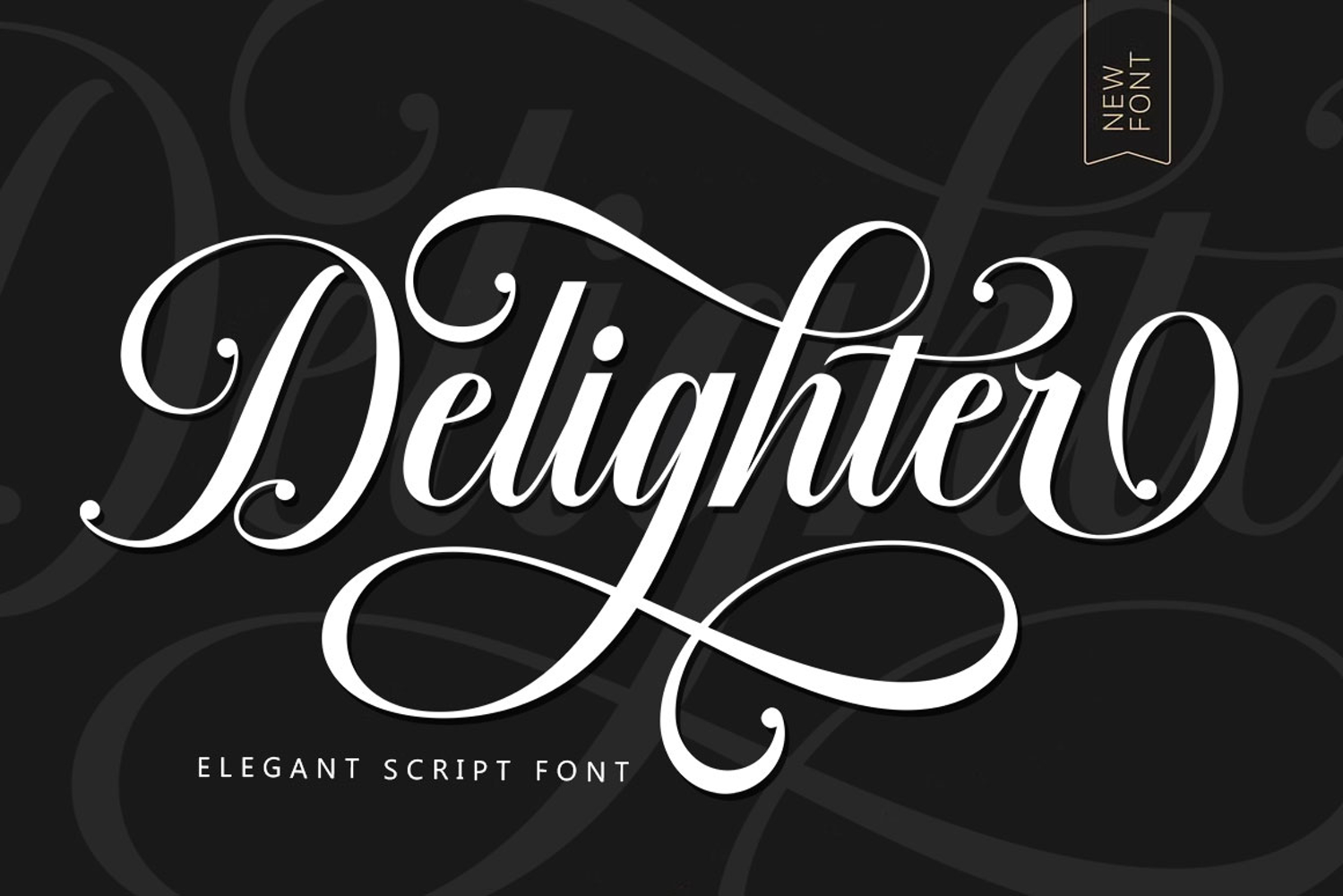
Delighter
Delighter Script Font is an elegant script font featuring beautiful character variations. It combines classic copper style with a modern touch, designed with great attention to detail for an elegant look.
This font is visually appealing, clean, feminine and easy to read, thanks to its luxurious letter connections. Its classic style is perfect for a variety of formal uses, including invitations, labels, restaurant menus, logos, fashion, makeup, stationery, novels, magazines, books, greeting and wedding cards, packaging and all types of advertising.